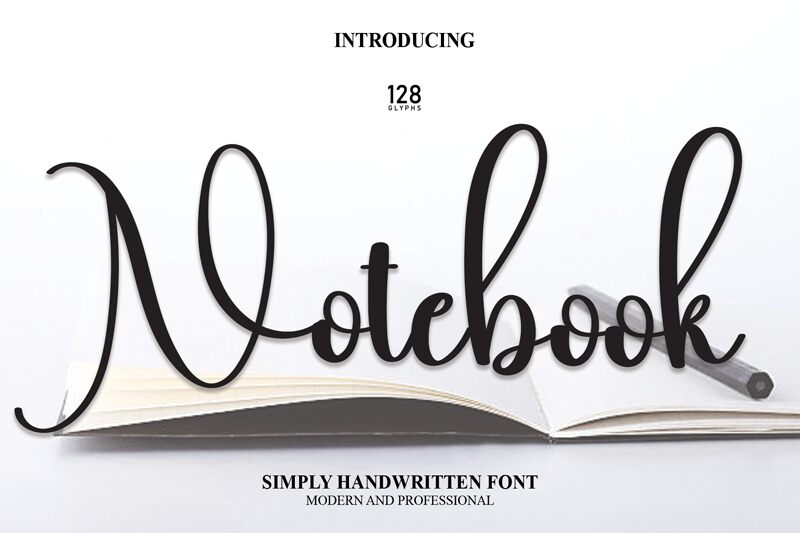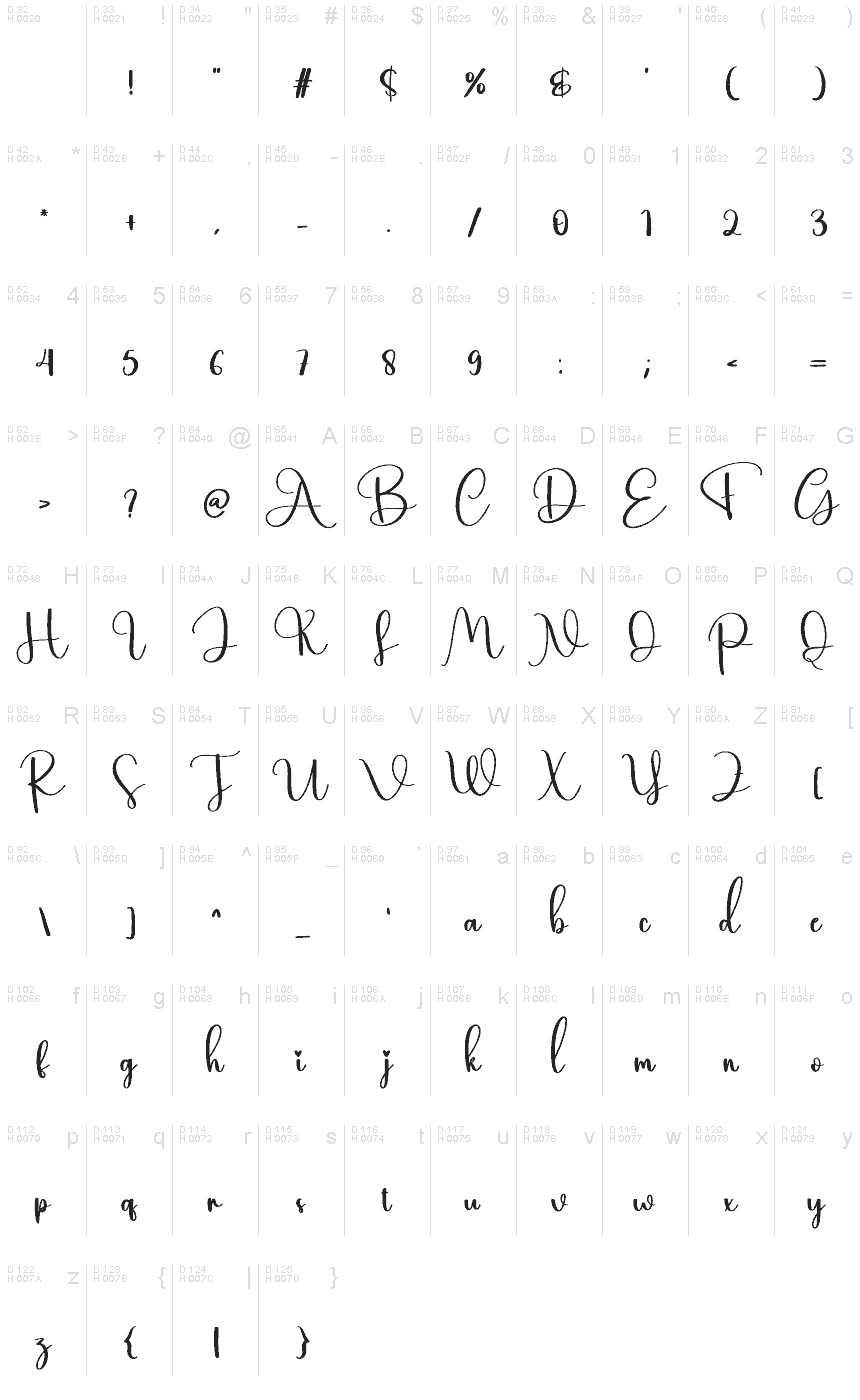
Notebook
Notebook font by Scratchones is a free handwritten font with elegant and flowing characters. Its expressive, yet contemporary script gives off an artful flair which is achieved with having perfect height differences in letters and maintaining subtle stylish swashes. It strikes out as a clean, easy-to-read typeface, which still provides a deserved touch of personality to the visual.
The applications for Notebook are endless: name boards, invitations, notebooks (duh!), greeting cards, posters/print advertisements, website headers/footers/titles/general design ideas, ads in general whether for digital or print work. Basically, anything casual that also needs that extra spark of something special when it comes to whatever they contain inside their words!